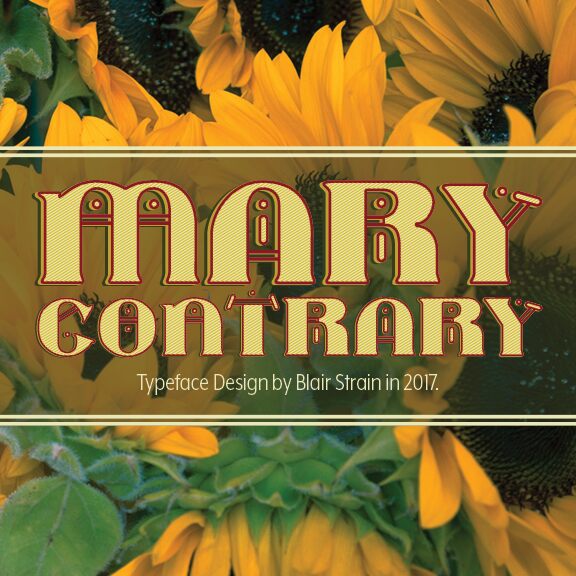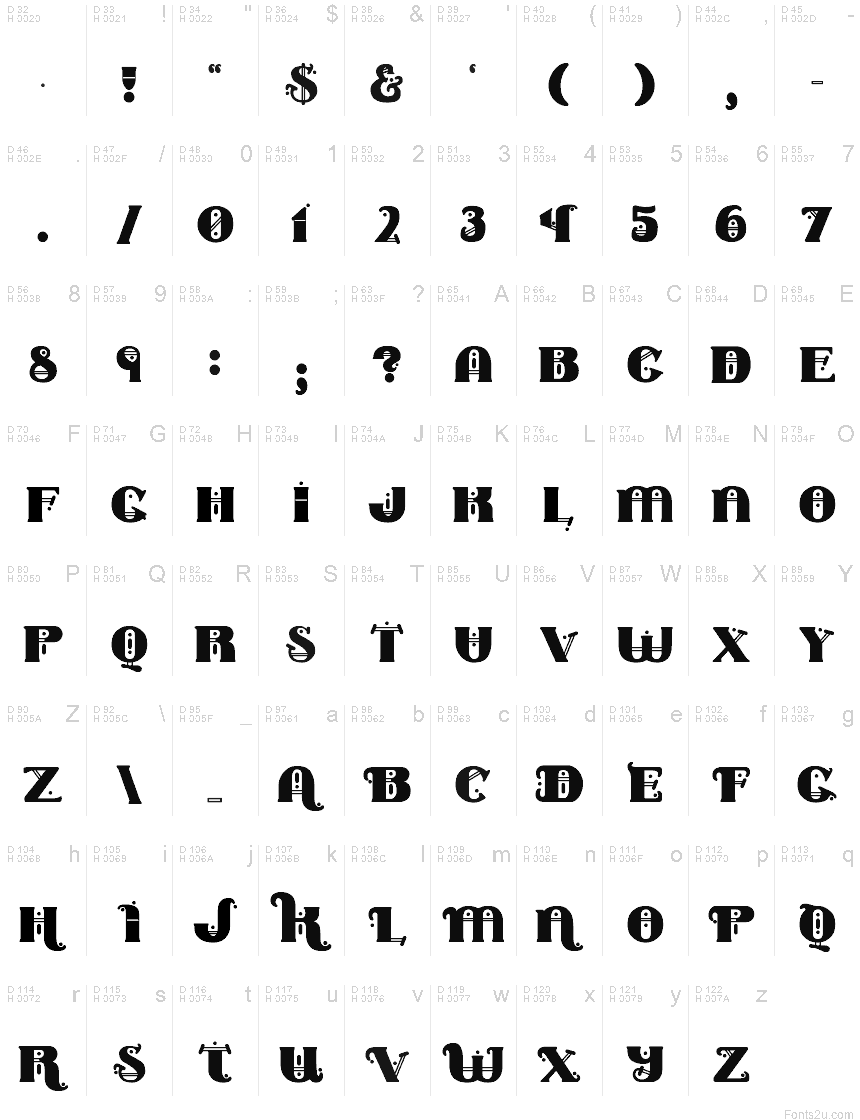
MARY CONTRARY Normal
Mary Contrary is an all capital display typeface, first inspired by sequined spiders and the nursery rhyme, Mary, Mary, Quite Contrary. Mary Contrary includes alternates for easy mixing & matching and includes glyphs. Experiment and get creative inside Marys garden by interchangeably using the upper and lower case as alternatives for each character. Mary Contrary is available for personal use. Any donations are much appreciated.